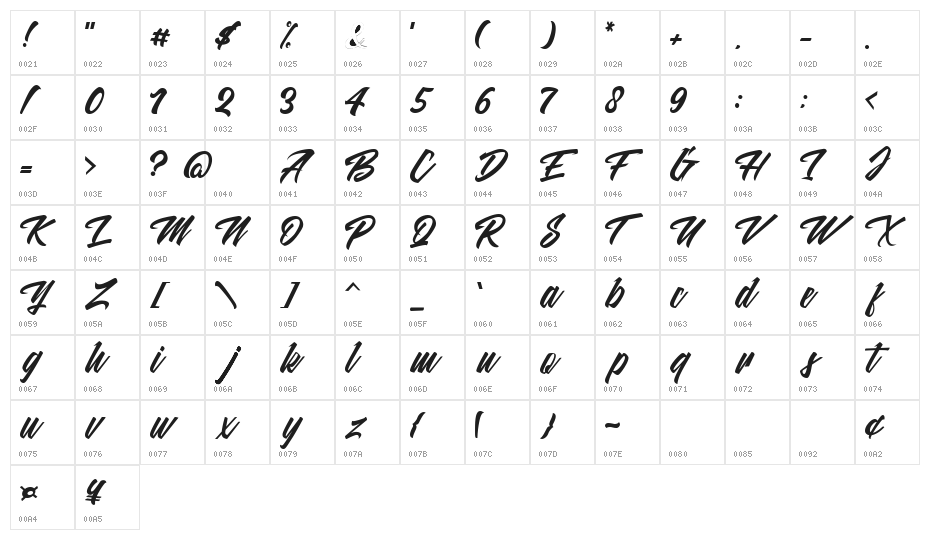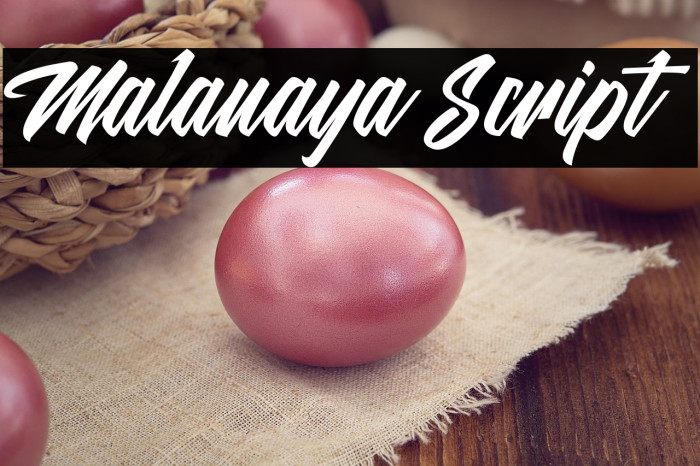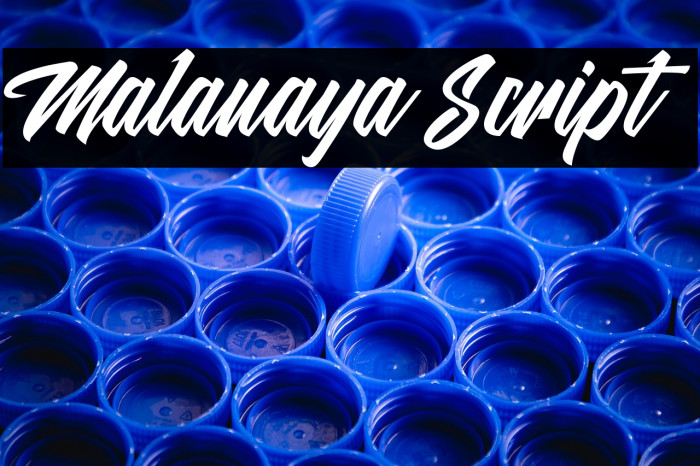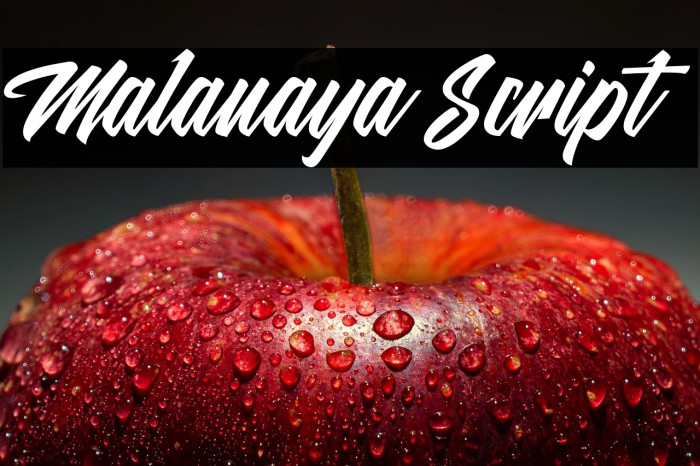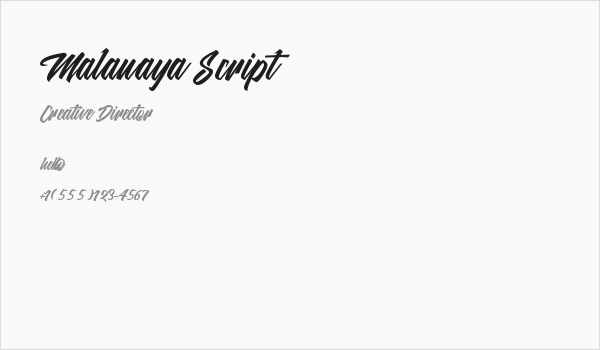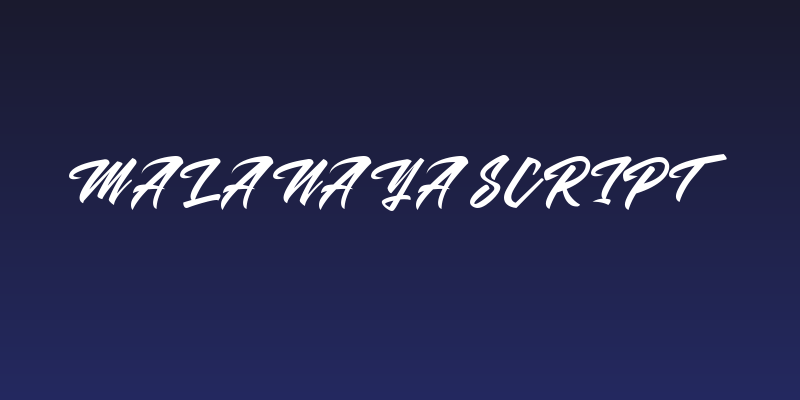
Malanaya Script Font
Malanaya Script Description
This font features a dynamic and flowing script style, characterized by its elegant and cursive letterforms. The uppercase letters exhibit a graceful slant with smooth, connected strokes, while the lowercase letters maintain a consistent rhythm, enhancing the overall fluidity. The numerals and special characters are crafted with the same attention to detail, ensuring a cohesive appearance across all glyphs. The bold weight of the font adds a sense of strength and presence, making it suitable for impactful designs. Its high contrast between thick and thin strokes further accentuates its stylish and sophisticated look, making it ideal for creative and expressive projects.
| Use Case | Logos, Headlines, Invitations |
| Proposed Projects | Ideal for wedding invitations, branding, logo design, and elegant packaging. |